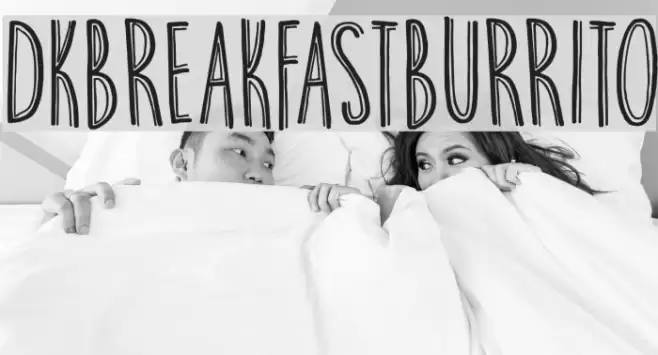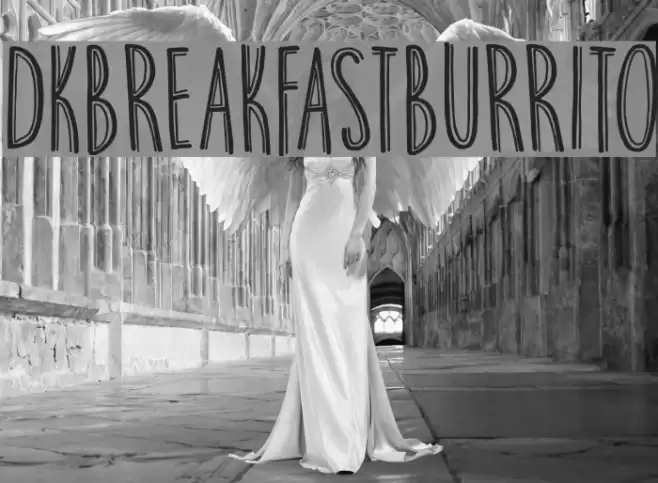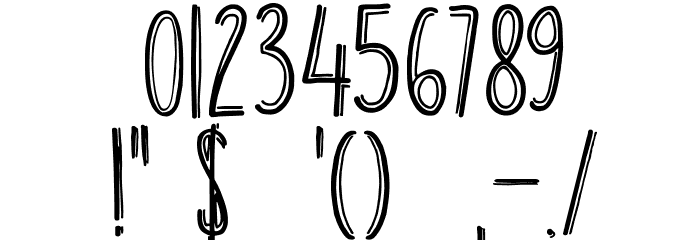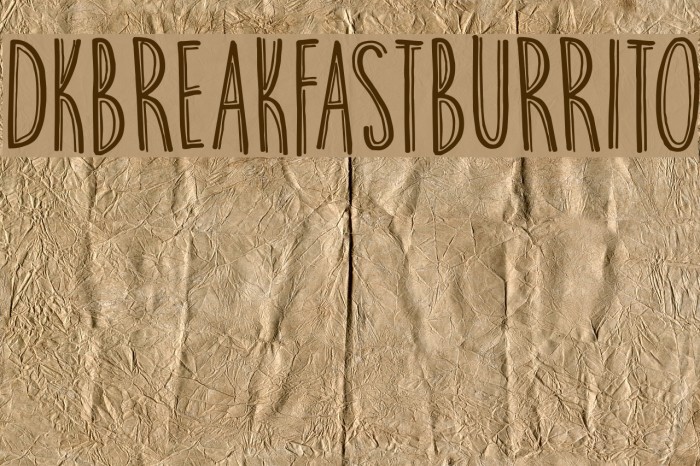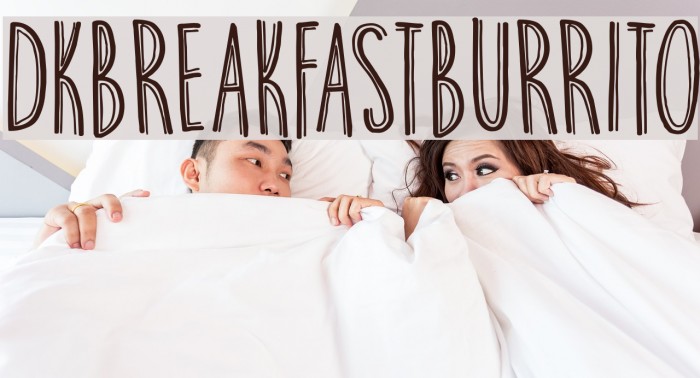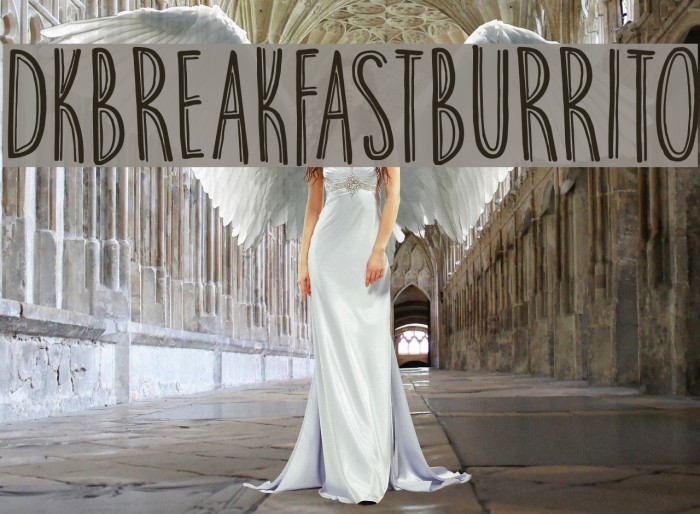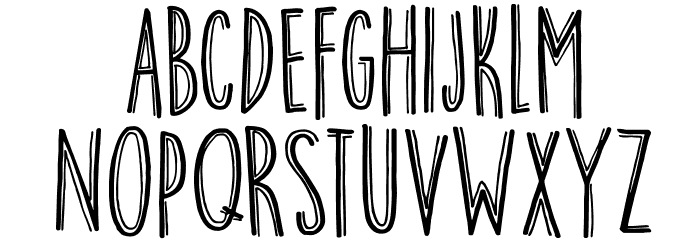
DKBreakfastBurrito Font
DKBreakfastBurrito Description
This font features a playful and quirky handwritten style, characterized by tall, narrow letters with a slightly irregular baseline. The strokes are uneven, giving it a casual and informal appearance. The uppercase and lowercase letters maintain a consistent height, while the numbers and special characters follow the same whimsical design. The overall look is reminiscent of hand-drawn lettering, making it suitable for projects that require a fun and approachable aesthetic. The font's unique personality is ideal for creative and artistic applications.
A playful, handwritten font with tall, narrow letters and a quirky style from Uncategorized fonts.
- Proposed Projects: Ideal for children's books, greeting cards, playful branding, and creative posters.